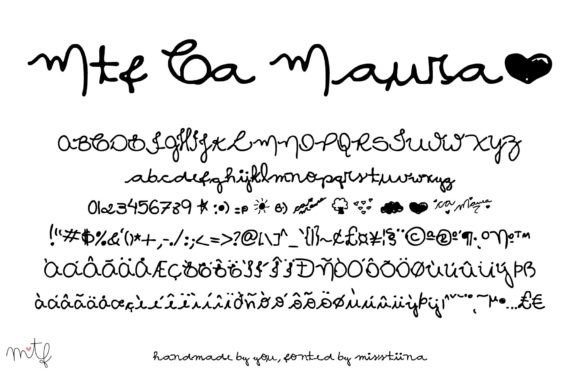
Introducing Ca Maura, the Enchanting Script Font that Captures the Essence of Handwritten Beauty
Ca Maura is not just a font; it's an art form that breathes life into your creative projects. Inspired by the delicate strokes of calligraphy, this script font emulates the charm and authenticity of handwritten letters, adding a touch of elegance and personality to your designs.
With its graceful curves, fluid lines, and natural flow, Ca Maura effortlessly replicates the beauty of penmanship. Its characters dance across the page, creating a cursive masterpiece that adds a personal touch to your projects.
Ca Maura is the perfect choice for designers, crafters, and artists seeking a font that exudes warmth, creativity, and individuality. Whether you're creating invitations, greeting cards, posters, logos, or any other project that demands a handwritten feel, Ca Maura will elevate your designs to new heights.
Immerse yourself in a World of Creativity and Personal Expression
Ca Maura is more than just a font; it's an invitation to unleash your creativity. With its versatility and adaptability, this script font opens up a world of possibilities for your projects.
Add a touch of whimsy to your invitations and greeting cards, making them truly memorable. Create logos and branding that reflect your unique style and personality. Design posters and flyers that capture attention and leave a lasting impression. The possibilities are endless with Ca Maura as your creative companion.
Unleash the Power of Authenticity and Connection
In a world of digital communication, Ca Maura stands out as a symbol of authenticity and connection. Its handwritten appearance adds a human touch to your designs, creating a sense of intimacy and relatability.
When you use Ca Maura, you're not just sending a message; you're sharing a piece of yourself. Your audience will feel the warmth and sincerity behind your words, fostering a deeper connection and engagement.
Embrace the Beauty of Imperfection and Embrace Your Unique Style
Ca Maura embraces the beauty of imperfection, celebrating the uniqueness and charm of handwritten letters. Its characters are not perfectly aligned or uniformly shaped, reflecting the natural variations and quirks of human handwriting.
This organic quality adds a touch of authenticity and personality to your designs, making them stand out from the crowd. With Ca Maura, you can embrace your unique style and create projects that are truly one-of-a-kind.